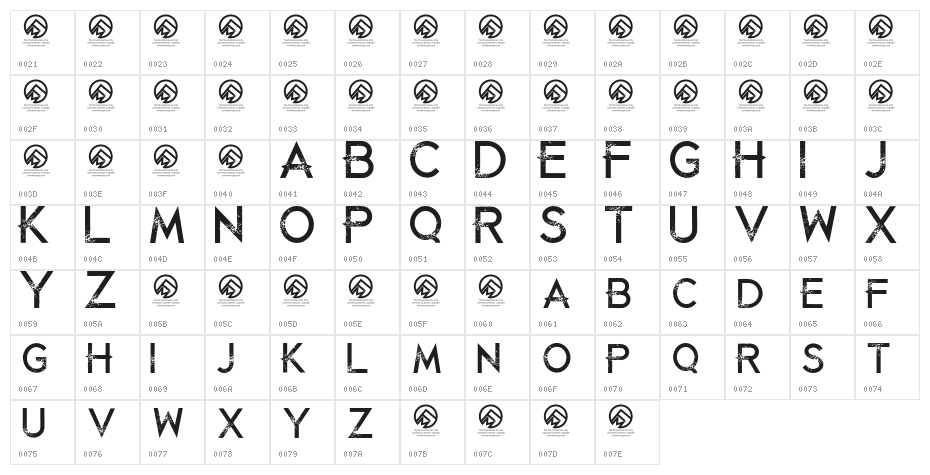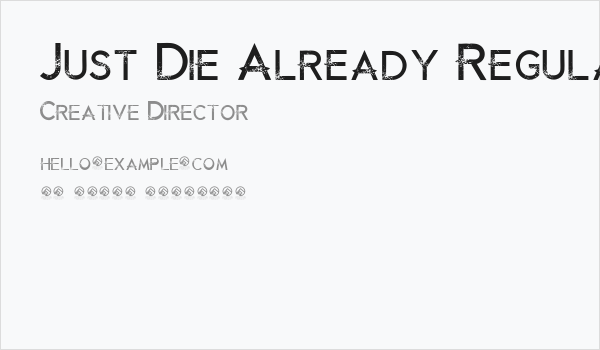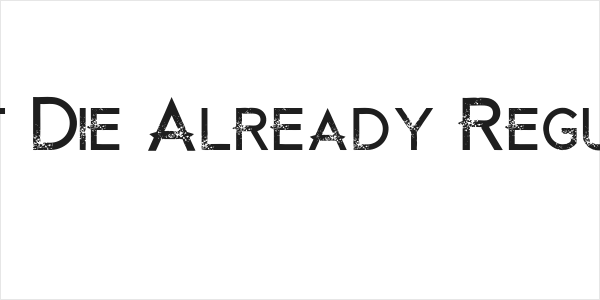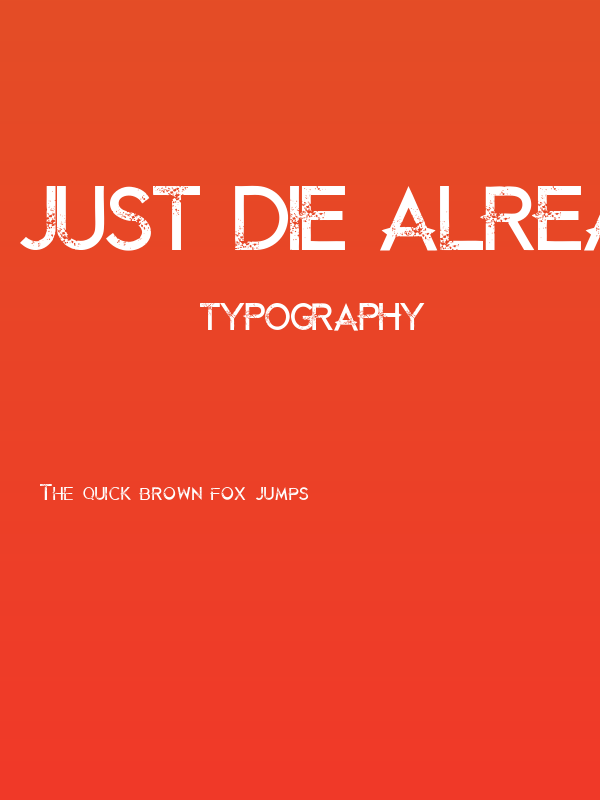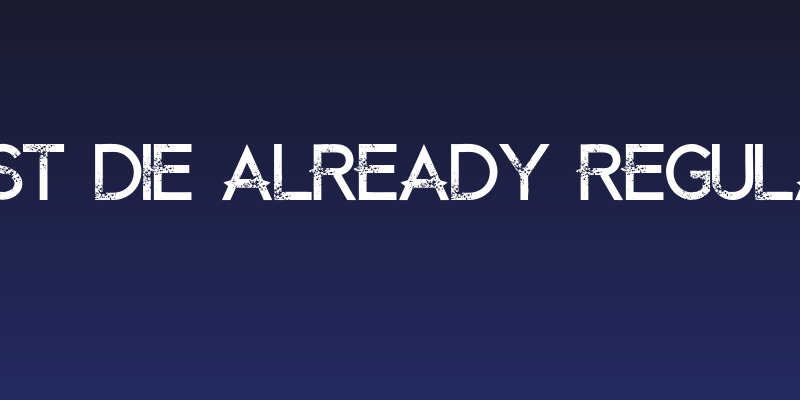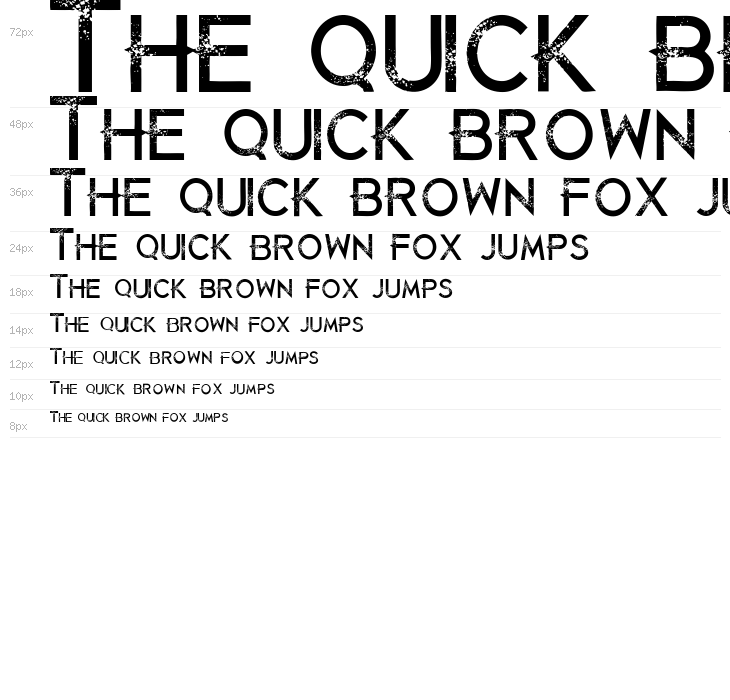
Just Die Already Regular Font
Just Die Already Regular Description
This font features a bold and distressed style, with a grunge texture that gives it a rugged and edgy appearance. The uppercase letters are designed with sharp, angular lines, creating a sense of urgency and impact. The texture varies across the characters, adding a dynamic and unpredictable element to the overall look. This font is ideal for projects that require a strong, rebellious, or urban aesthetic. It stands out with its unique distressed effect, making it suitable for eye-catching headlines and designs that aim to convey a sense of raw energy.
| Overall Style | Edgy, Urban, Grunge |
| Proposed Projects | Ideal for album covers, posters, streetwear branding, and edgy graphic designs. |